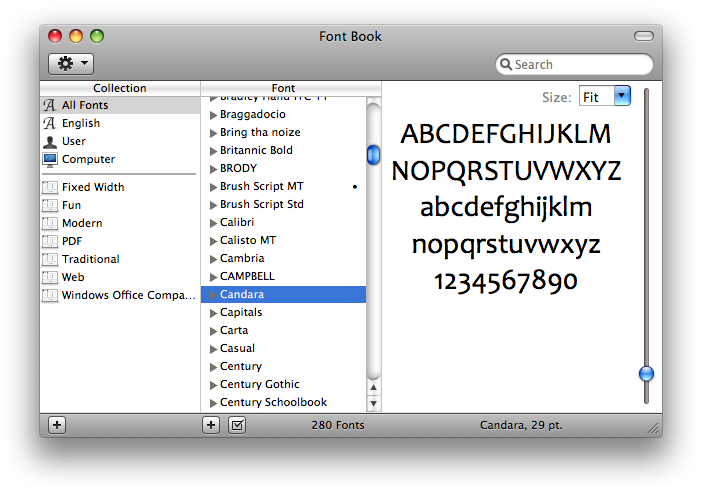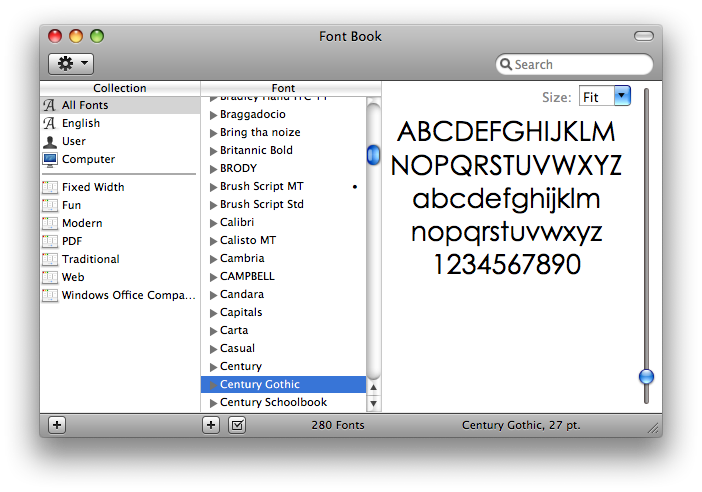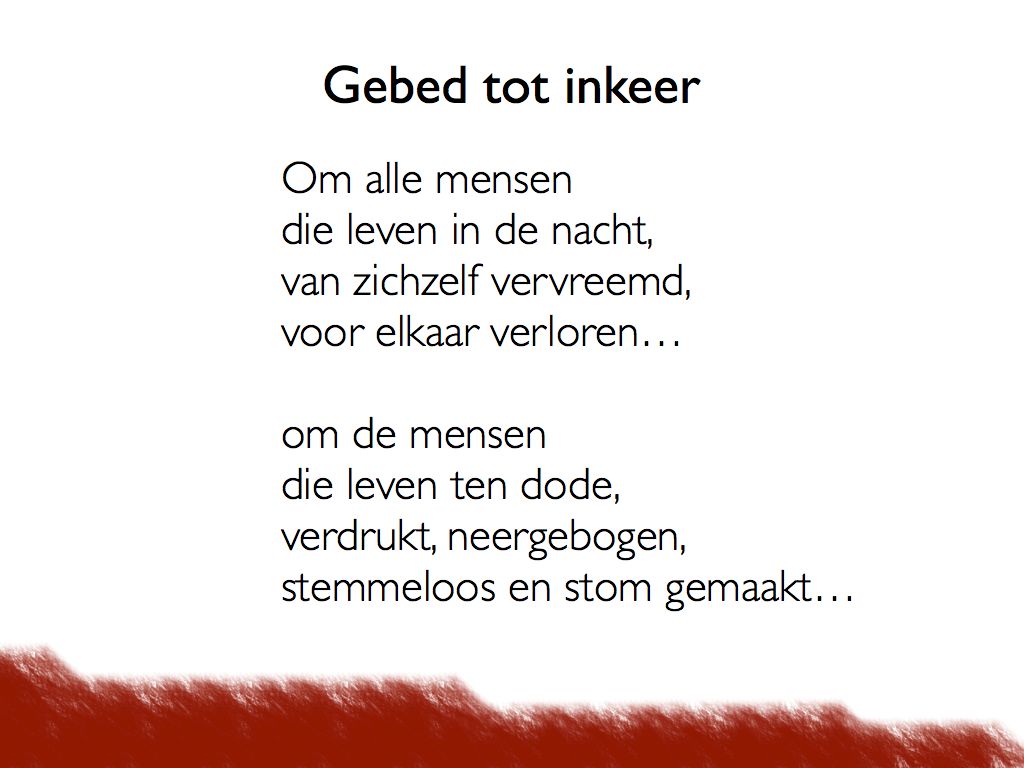
I am making a keynote to accompany a mass, where a good friend of mine will be ordained priest. I really need it to be stylish and modern, but most of all, it has to be readable. This is what I currently have, with Gill Sans for the text. I won't ask if it will be readible like this, because it will depend on the church, but I want to know if Gill Sans is a good choice for this kind of thing. What fonts would you guys recommend? Also, any thoughts on the rest of the slide? I went for black on white, but with a coloured accent (the colour of his invitation and other stuff during the festivities) at the bottom.
Very nice, I also think Candara or Century Gothic would look really good too, or a combination of the two (one for the title, the other for the rest of the text)...
Century Gothic was what I was going to say.
Also, to the original poster, do you mean modern as in before post modernism, or do you mean modern in the sense of now and current?
You could make the heading a little more interesting. Maybe try it in the accent colour and to the left of the body text. So you have the main text block filling more the right side of the screen. Then you can bring in the colour from the left bottom a bit more.. i would mock it up but i've got about a minute of battery left....
modern as in now and current. I tried Century Gothic and Candara, and it looks good. I'm meeting him sunday, so I'll ask him what he likes best.
Macnoviz, I think those look good - and that you had exactly the right idea. Go with something simple & modern in the design and let the words speak for themselves.